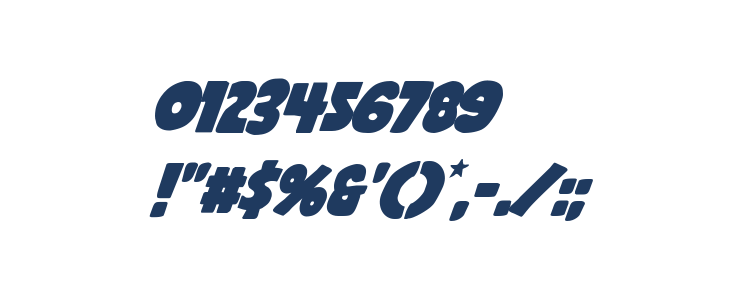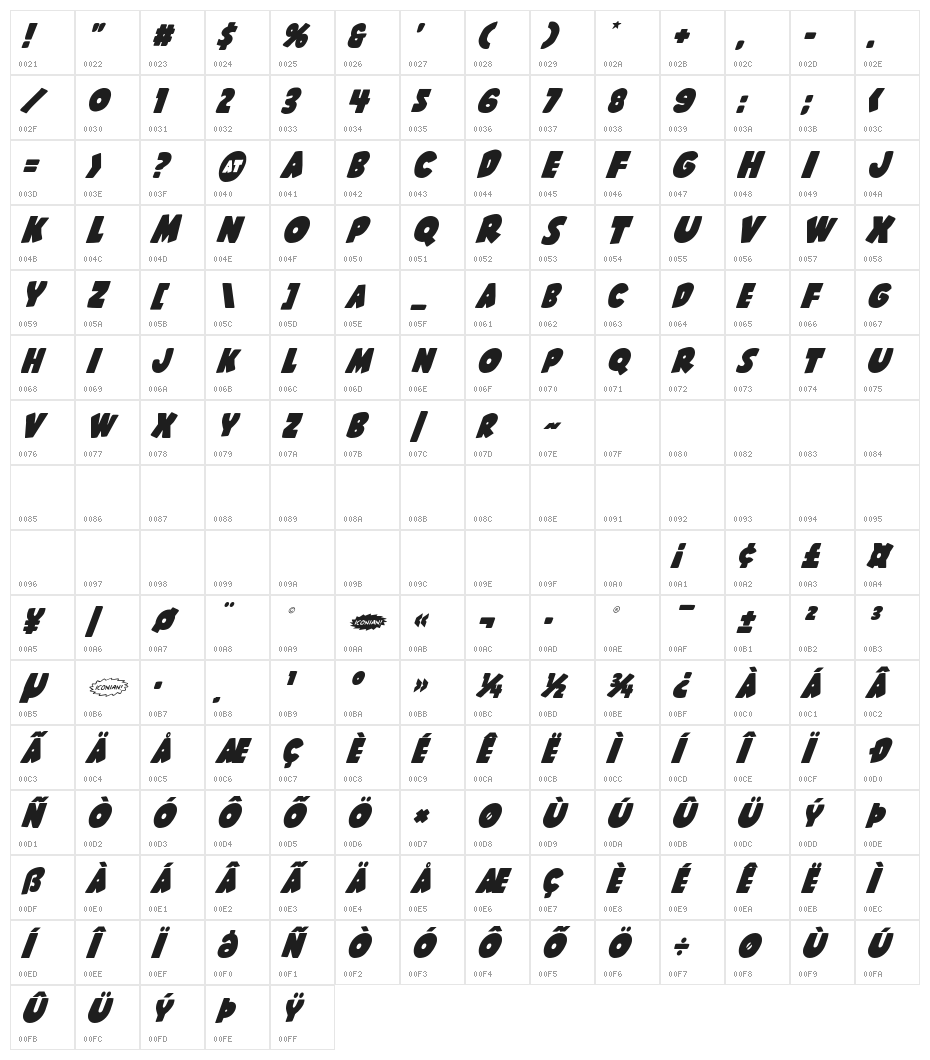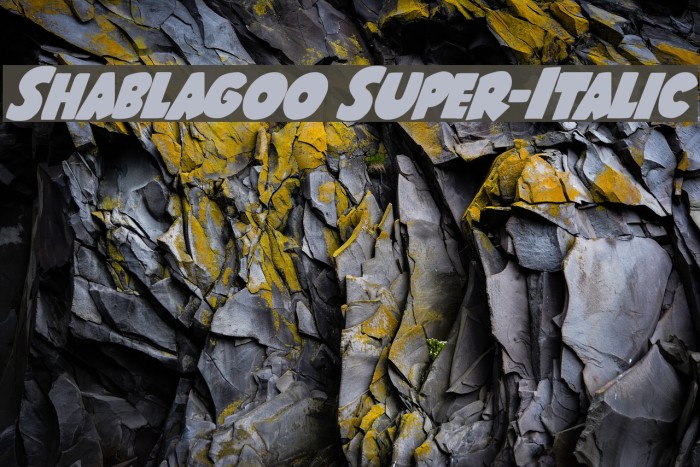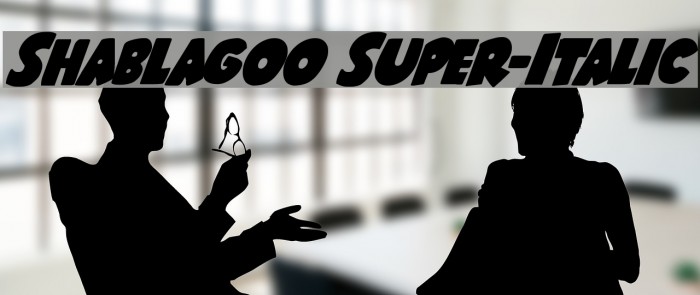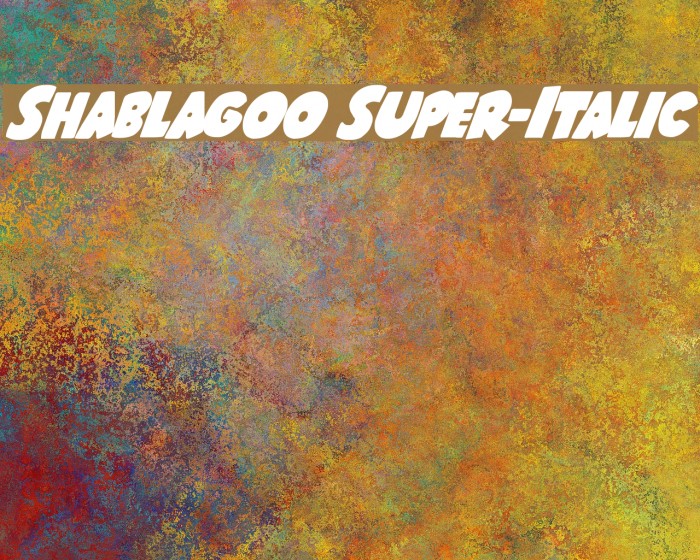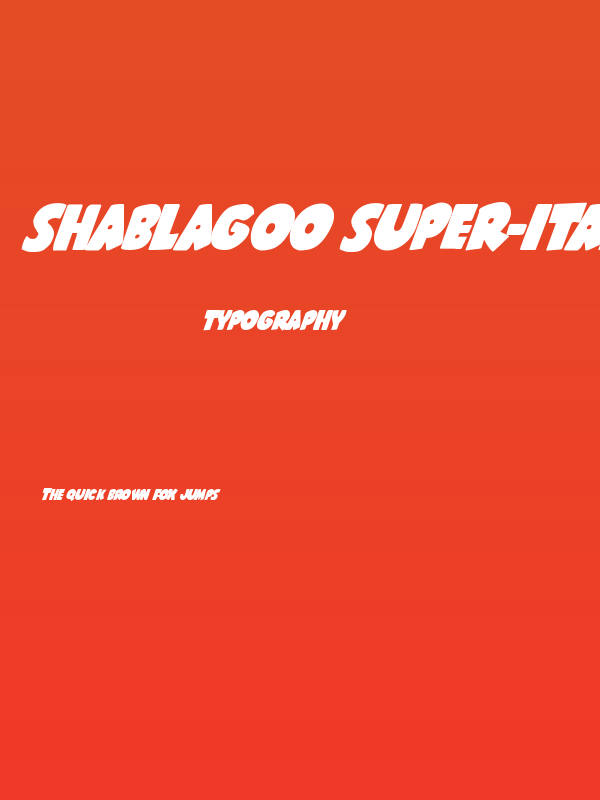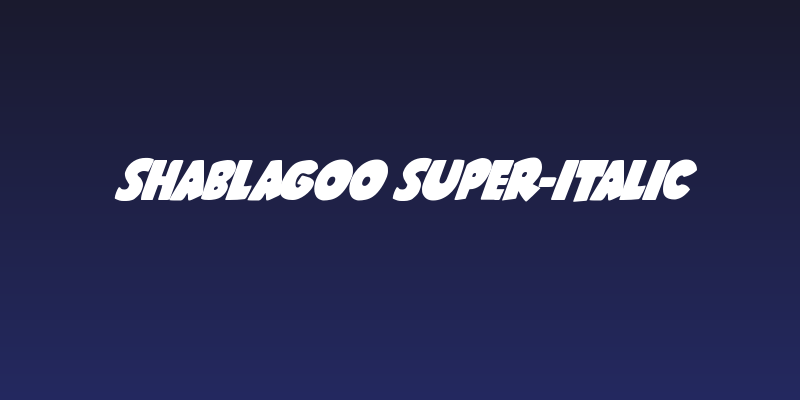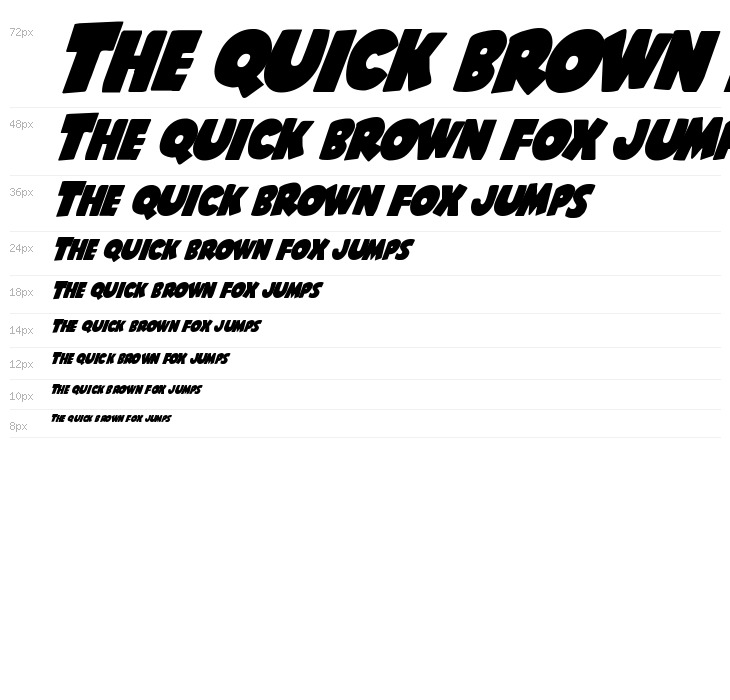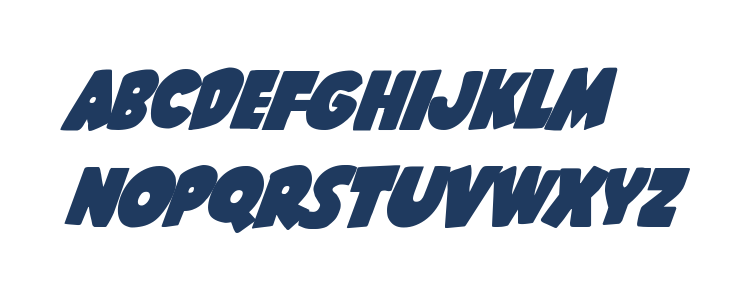
Shablagoo Super-Italic Font
Shablagoo Super-Italic Description
This font features a bold and dynamic style with a strong slant, giving it an energetic and playful appearance. The characters are thick and rounded, with a consistent stroke width that adds to its boldness. The exaggerated slant and wide letterforms create a sense of movement and urgency, making it ideal for attention-grabbing headlines or titles. The font includes a full set of uppercase and lowercase letters, numbers, and a variety of special characters, all maintaining the same lively and robust design.
Proposed ProjectsIdeal for use in posters, advertisements, comic book titles, and any project requiring a bold, energetic typeface.